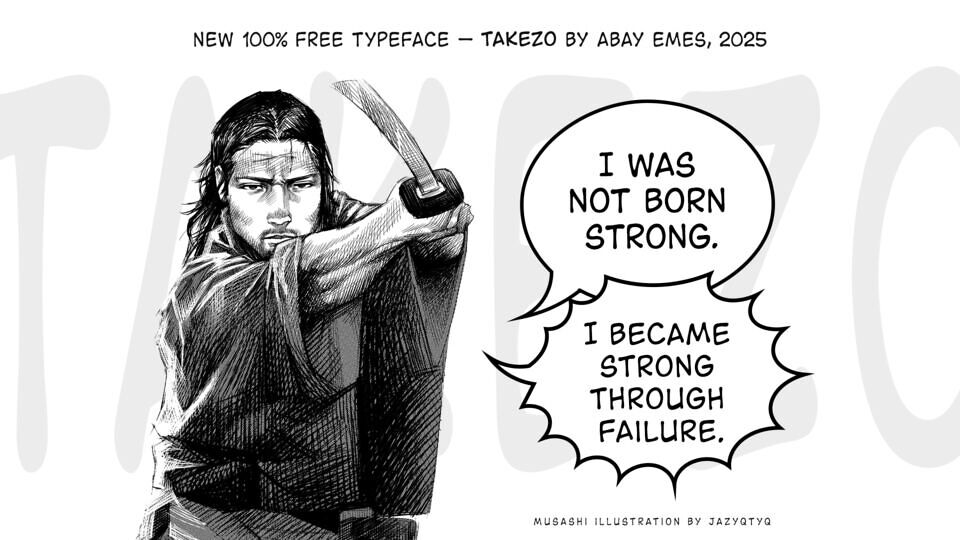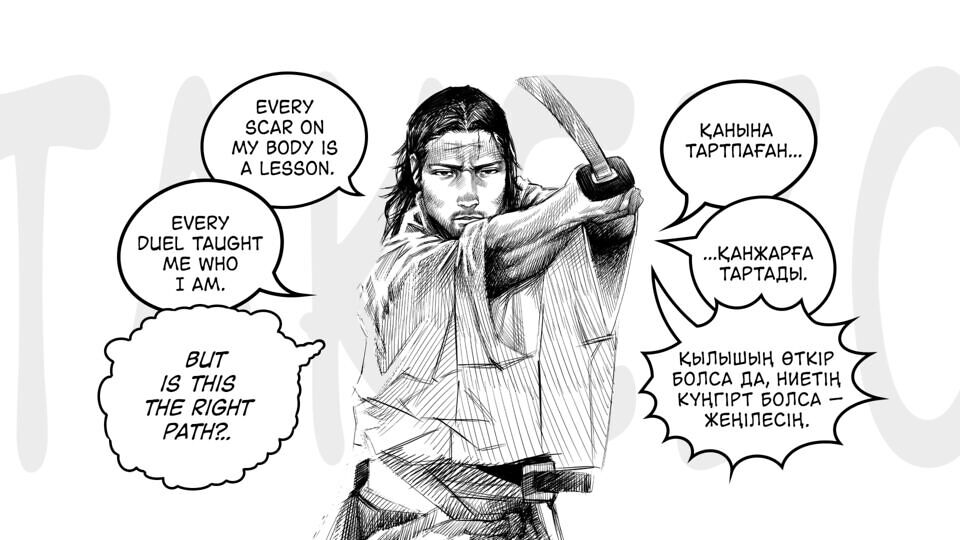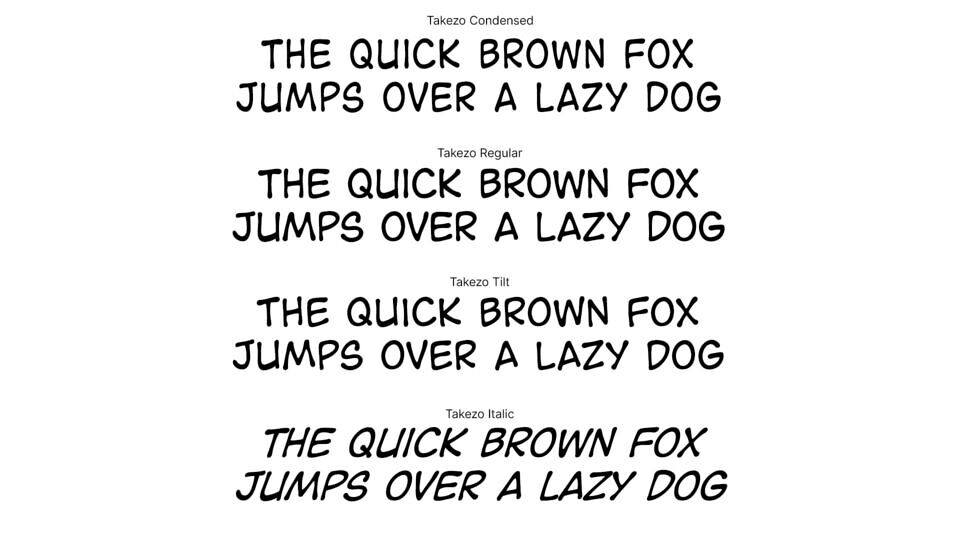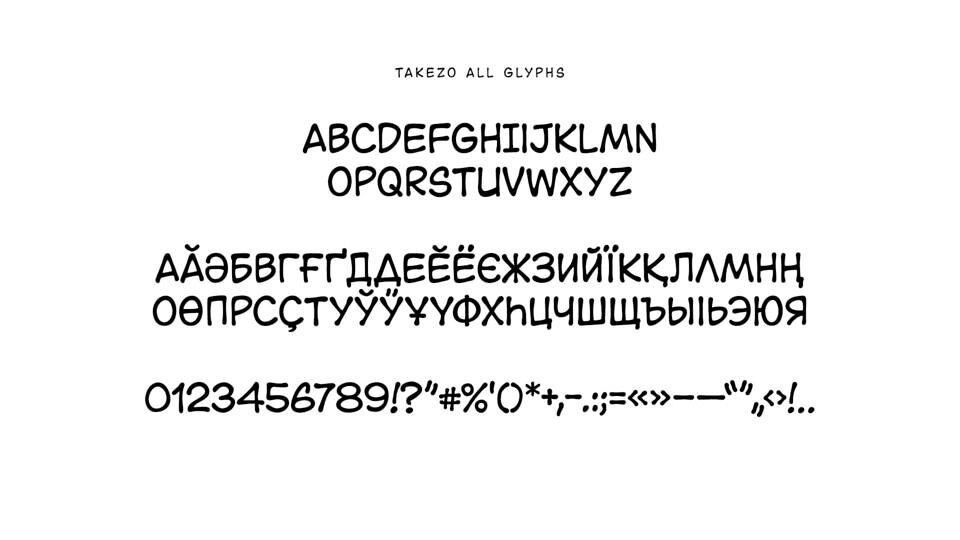
Takezo is a playful, comic-style font by Abay Emes, designed to capture the lively spirit of manga and graphic storytelling. It features expressive letterforms with dynamic curves, giving it a sense of movement and personality.
This versatile typeface is available in several styles, including Condensed, Regular, Tilt, and Italic, and supports both Latin and Cyrillic glyphs. Its friendly yet impactful aesthetic makes it ideal for speech bubbles, character dialogue, and any project inspired by comics.